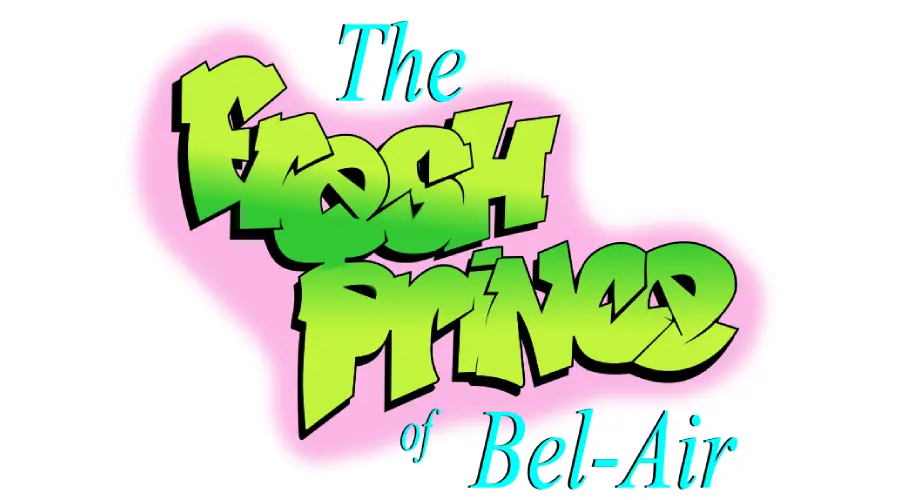
TheΒ Fresh Prince FontΒ is closely associated with the iconic logo of the popular 90s sitcomΒ The Fresh Prince of Bel-Air. The show, starring Will Smith, became a cultural phenomenon, and its logo, featuring a unique and playful font, remains memorable to this day. While the original font used in the logo was custom-made, there are similar fonts available that capture its essence.
- Prince by FG StudiosΒ β This font closely resembles the one used in the Fresh Prince logo, with its bold, rounded, and slightly retro style.